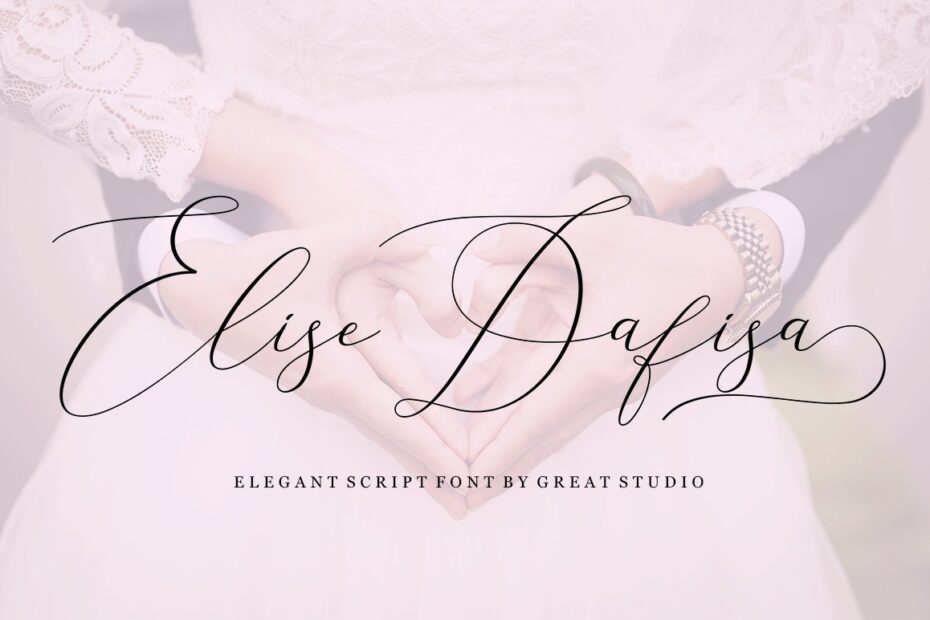
Creating Memories with Elise Dafisa Script Font
There’s nothing quite like the feeling of bringing a special moment to life through design. Whether it’s a wedding invitation, a birthday party invitation, or a heartfelt letter, the right font can make all the difference in conveying the emotions and atmosphere of the occasion.
Enter Elise Dafisa Script Font, a modern calligraphy font with classic, sophisticated accents that can give your special event projects a romantic and timeless touch. This thin script font is designed to be versatile, ideal for a wide range of uses in both print and digital projects.
For designers, Elise Dafisa Script Font is a valuable asset in their toolkit, offering a unique and elegant solution for creating beautiful and memorable designs. With its classic, sophisticated style, it’s no wonder why this font is a favorite among designers looking to add a touch of romance and sophistication to their projects.
Key Features of Elise Dafisa Script Font
- Font Family: Elise Dafisa Script Font
- Font Size: Supports a wide range of font sizes, from 8pt to 240pt
- Resolution: Supports high-resolution printing up to 1200 DPI
- Unique Characteristics: Handwritten, elegant, and sophisticated script font with a unique flair; perfect for invitations, wedding stationery, and other special occasions
- Font Style: Script, Calligraphy
Review of Elise Dafisa Script Font
Overall, I have mixed feelings about the Elise Dafisa Script Font. On one hand, there are some things that work really well, but on the other hand, there are some limitations that might make it less suitable for certain projects.
- Unique, elegant design: Elise Dafisa Script Font has a distinctive, cursive feel that’s perfect for adding a touch of sophistication to your designs.
- High-quality glyphs: The font is well-designed, with smooth connections between letters and no jarring or awkward shapes.
- Great for branding and packaging: The font’s elegant feel makes it ideal for luxury brands, packaging, and other applications where you want to convey high-end quality.
- Limited legibility: While the font looks great, it can be difficult to read, especially at smaller sizes or in complex text settings.
- Not suitable for body text: Elise Dafisa Script Font is best used as a header or title font, as its elegance can get lost in large blocks of body text.
- Limited font weights and styles: While the font has some nice variations, it’s limited in terms of font weights and styles, which can make it less versatile.
Overall, I think the Elise Dafisa Script Font is a great choice for designers who want to add a touch of elegance to their projects. However, it’s not a one-size-fits-all solution, and you’ll want to consider its limitations before using it extensively.
Tips for Getting the Most Out of Elise Dafisa Script Font
Use the Elise Dafisa Script Font for titles, headings, and quotes to add a touch of elegance to your designs.
Pair the font with a clean sans-serif font for body text to create a balanced look.
Experiment with font sizes and colors to create visual interest and hierarchy in your designs.
Stationery and greeting cards
Editorial and publishing design